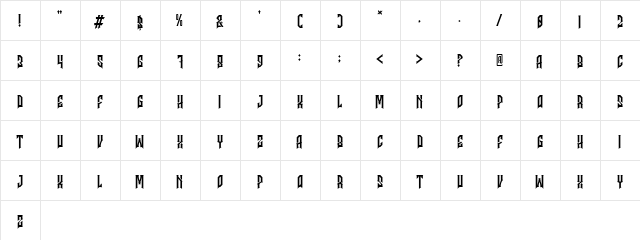
Godhong Free Regular
| Foundry | Tamavocks |
| Designer | Tamavocks |
Design Context for Godhong Free Typeface
Godhong Free is a composed and adaptable typeface that performs quietly and consistently across a wide range of design contexts.